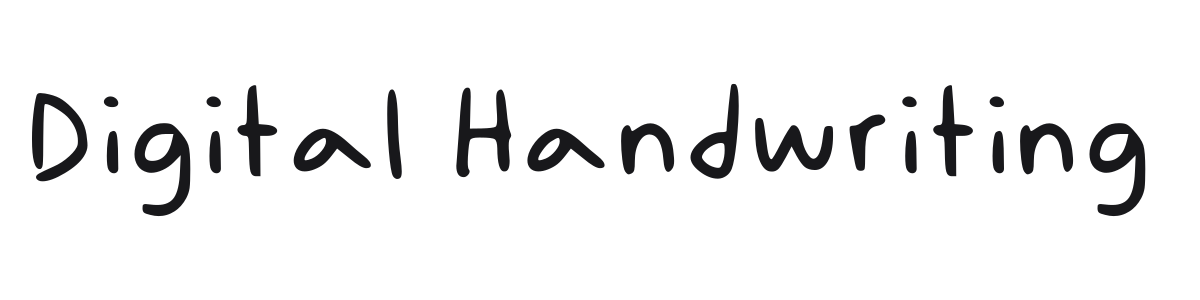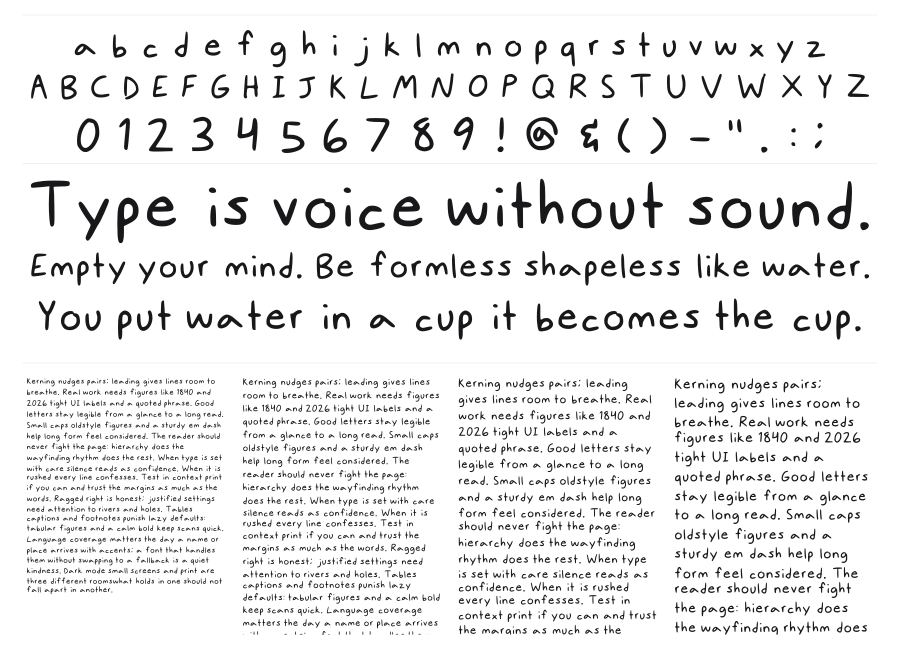
Digital Handwriting
Digital Handwriting captures the loose, unpretentious feel of everyday handwriting with a marker or pen on screen. Its slightly irregular strokes, rounded terminals, and gently uneven rhythm give it an authentic personal quality without trying too hard. It reads warm and approachable across children's content, personal branding, and casual editorial work.